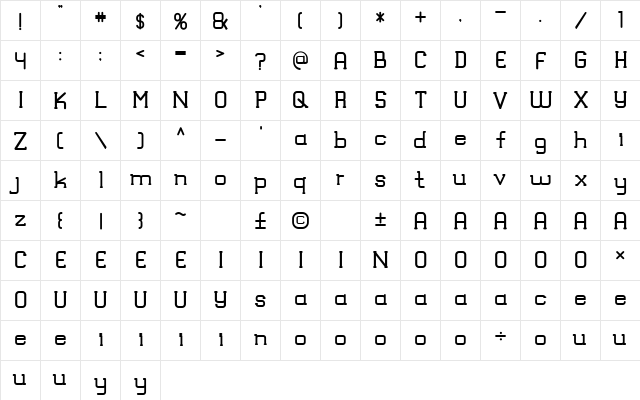
TRUMANS Regular
| Foundry | Edric Studio |
| Designer | Deyan |
Design Context for TRUMANS Typeface
TRUMANS is a composed and adaptable typeface that performs quietly and consistently across a wide range of design contexts.